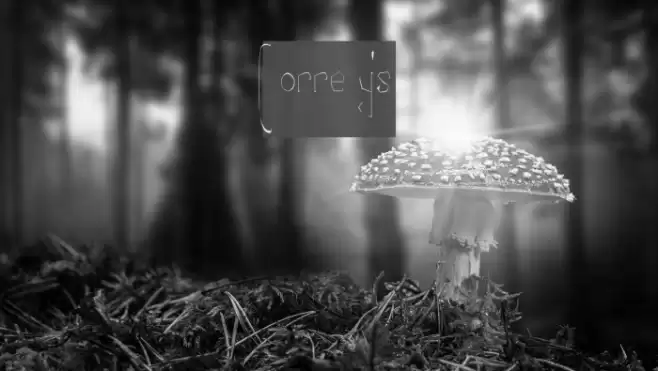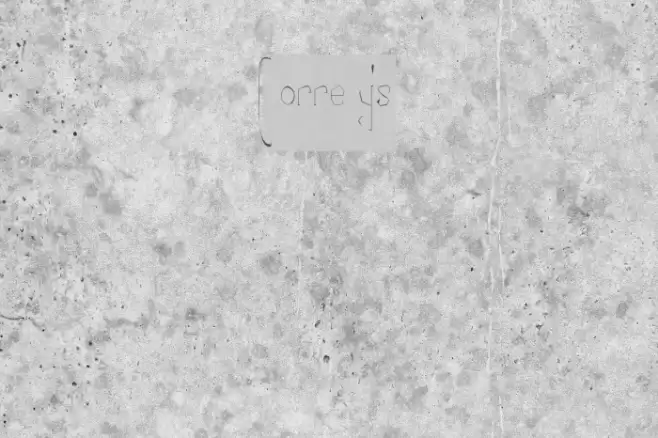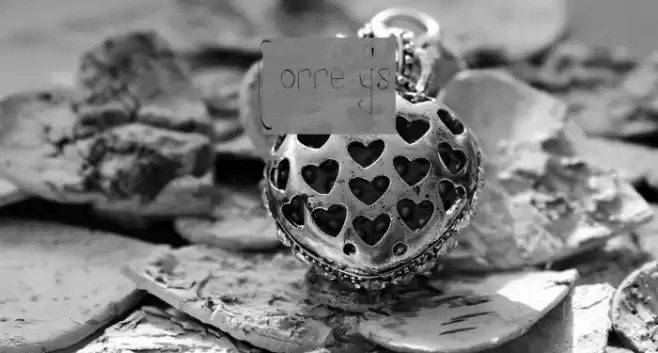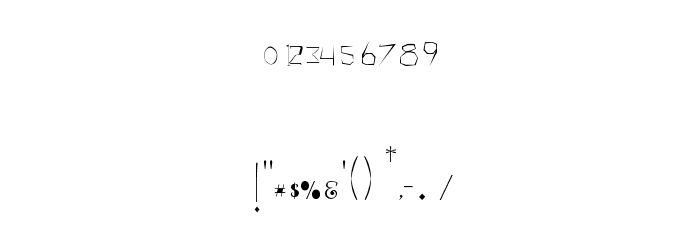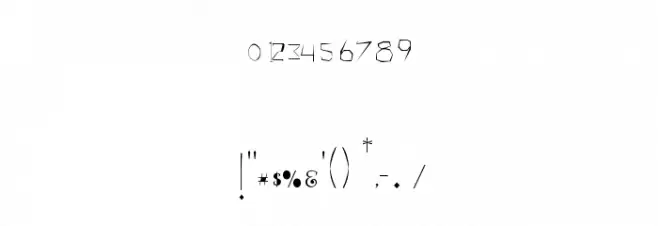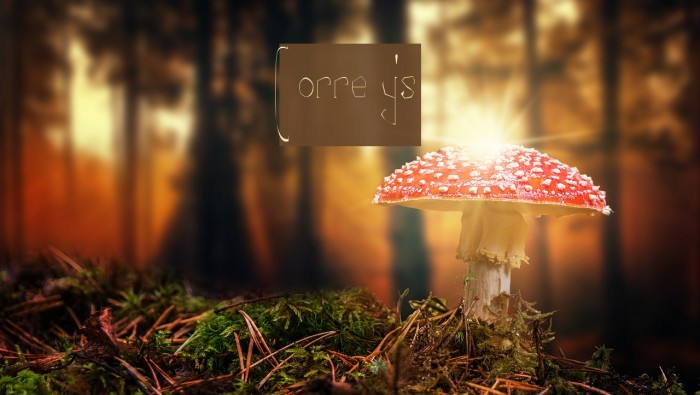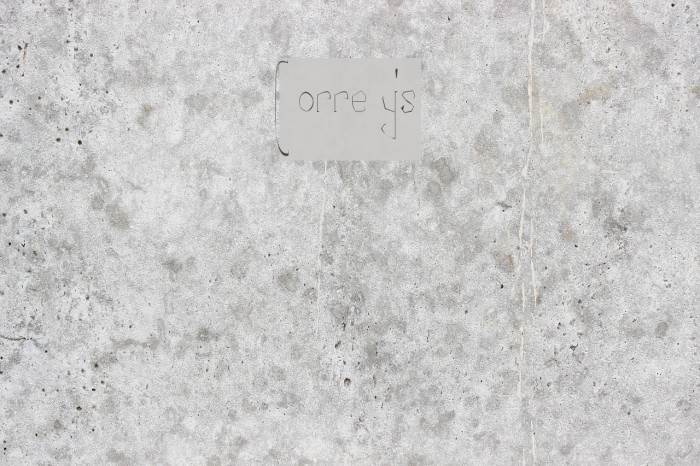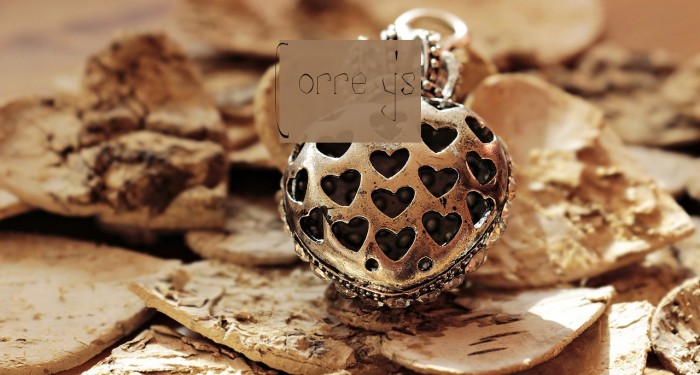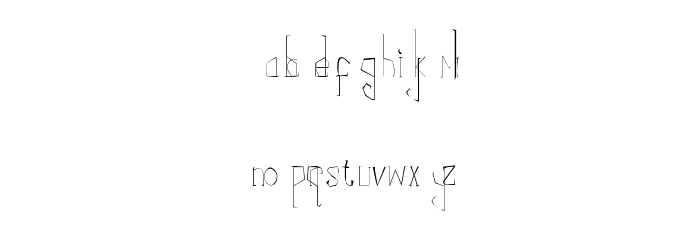
Correy's Font
Correy's Description
This font features a unique and artistic design with elongated and narrow letterforms, creating a striking visual impact. The uppercase letters are tall and slender, with a modern and avant-garde style that adds a sense of elegance and sophistication. The lowercase letters maintain the same narrow structure, offering a cohesive look across the typeface. The numbers and special characters are designed to match the overall aesthetic, ensuring consistency throughout. The font's thin strokes and high contrast give it a delicate and refined appearance, making it suitable for creative and artistic projects.
An artistic, elongated font with narrow letterforms and high contrast from Cartoon fonts.